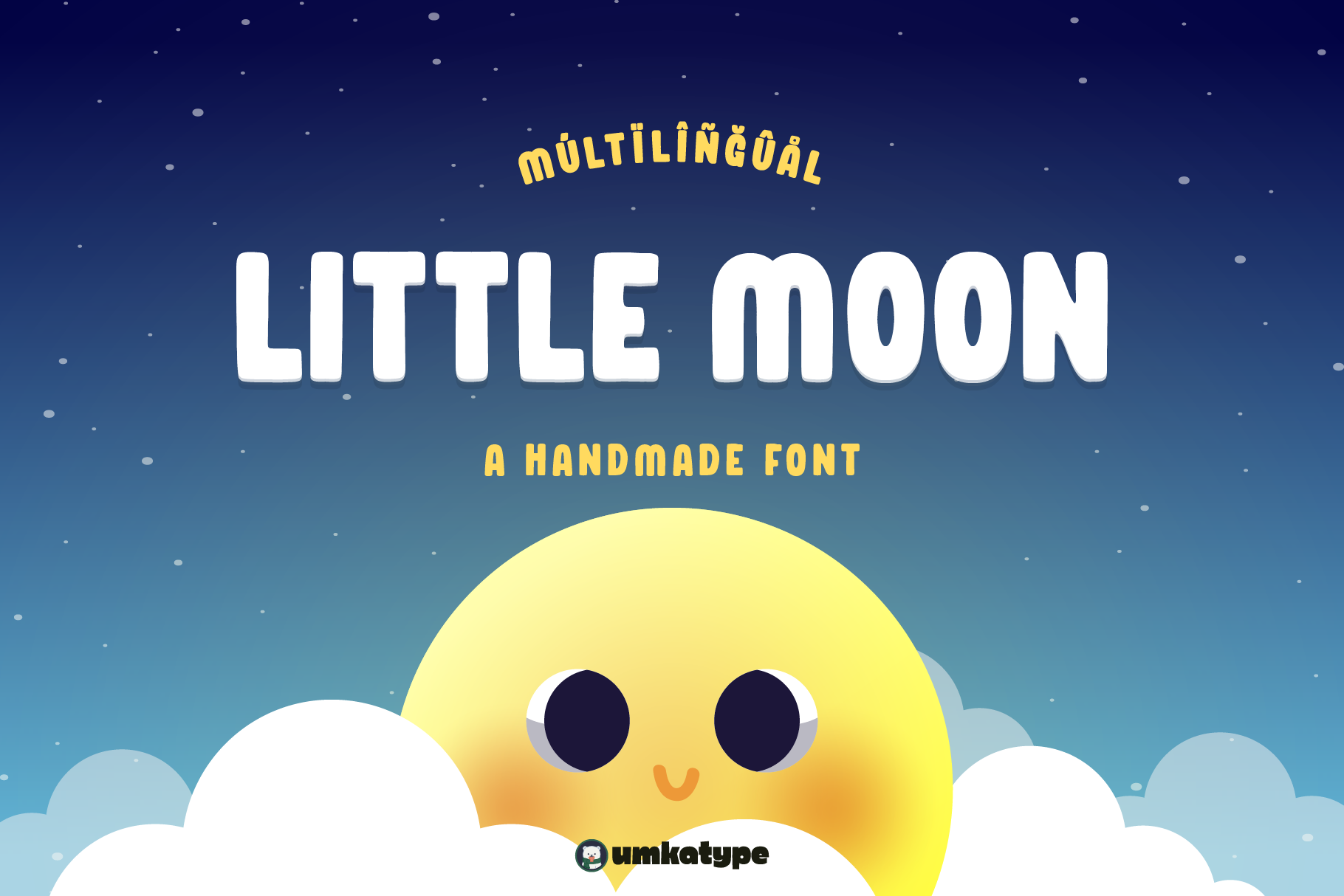
Little Moon Handmade Display Font
Little Moon - A Display Font
** Little Moon** is a carefully crafted font.
Multilingual: It has Extended Latin and Extended Cyrillic letters.
Little Moon created for games, web design, branding and social media works.